1. Seyna Font
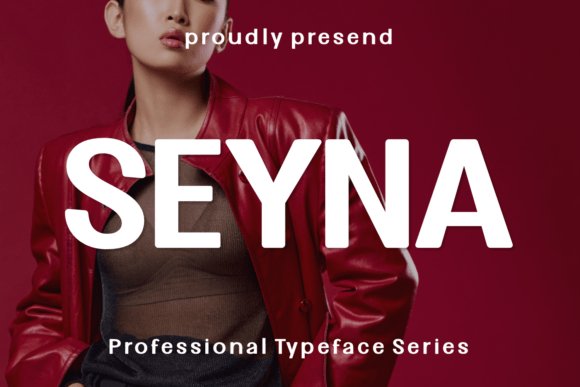
Seyna Font presents a bold blend of gothic angles and contemporary clarity, its medium weight built from strong vertical strokes and slightly condensed proportions that make headlines read like statements. The letterforms balance sharp terminals with generous curves so the face reads assertive yet refined at large sizes. On posters and identity marks it grants instant presence, while its carved shapes reproduce cleanly on merchandise, print, and screen.
For practical use, pair Seyna with a plain humanist sans for body copy to avoid typographic competition and tighten tracking for acronyms or short names to preserve impact. Reserve it for short, high-visibility lines where the form can breathe and consider metallic or tactile print finishes to accentuate its gothic notes without losing legibility. It also adapts well to condensed logo work and tattoo-inspired lettering where a confident outline is desirable.
My Recommendation: I choose Seyna when I need typography that reads as a bold signature rather than background text. Its gothic-inflected shapes give posters, fashion lookbooks, and brand marks a dramatic edge while remaining surprisingly legible. Use it for film posters, event headers, and identities that need to feel deliberate and memorable.
2. Kod S Hulling Font
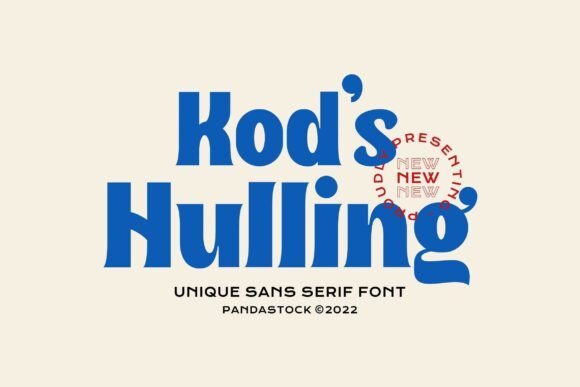
Kod S Hulling Font channels 1970s poster typography with chunky, rounded strokes and playful terminals that reference psychedelia without becoming fussy. The set of alternates and swashes (PUA-encoded) lets designers quickly switch moods, turning ordinary words into charismatic logos or badge-style headlines. Its dense weight and cheeky counters are built for short bursts of copy where personality must read at a glance.
Treat Kod S Hulling like a display toy: keep body text neutral and reserve this face for hero moments, labels, and short slogans that need warmth. Warm color palettes, sunburst gradients, or textured paper will boost its retro charm; avoid heavy distortion that flattens the crafted curves. It’s a strong pick for cafés, indie record sleeves, packaging, and social ads that aim to stop scrolling with friendly swagger.
My Recommendation: I reach for Kod S Hulling when a project wants nostalgic character with a playful attitude. Its swashes make simple marks feel handcrafted, perfect for food packaging, event posters, and social graphics. I usually pair it with a clean geometric sans to keep longer copy readable while the display type takes center stage.
3. Blood Font
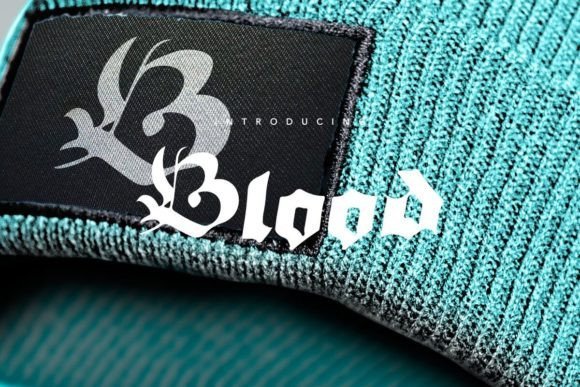
Blood Font reinterprets blackletter forms with restraint, offering high-contrast strokes and sculpted serifs that read dramatically at display sizes while avoiding excessive ornament. The overall effect is historic and deliberate: it works as an arresting headline face or compact logotype without becoming illegible. Because its contours are pronounced, printed and embossed finishes emphasize the carved quality of each letter.
Use Blood only for short phrases and marks to preserve clarity, and give it ample negative space so the angular counters can breathe. Pairing it with a neutral sans for body copy calms its intensity and improves readability, while single-color printing, foil, or letterpress will heighten its tactile presence. It fits craft beverage labels, band art, and fashion brands that reference tradition with contemporary restraint.
My Recommendation: I pick Blood when a design needs heritage and a strong visual signature without ornamental excess. It gives labels, posters, and apparel tags a sense of weight that reads well in tactile print or on merchandise. For brands in music, brewing, or heritage-driven fashion, it communicates character quickly and clearly.
4. Syukur Font
Syukur is a serif with a quietly charming personality: its modest bracketed serifs and gently tapered strokes give text a handcrafted warmth without losing clarity. Open counters and soft terminals make letters feel approachable on food labels and boutique packaging, while the slightly condensed proportions let you stack words in logos and posters without crowding the layout.
The font handles small sizes surprisingly well thanks to careful x-height and spacing, and it includes alternate glyphs that add subtle flair for headline work or monogramming. For apparel tags or editorial headings, Syukur brings a friendly but polished voice that reads as crafted rather than generic.